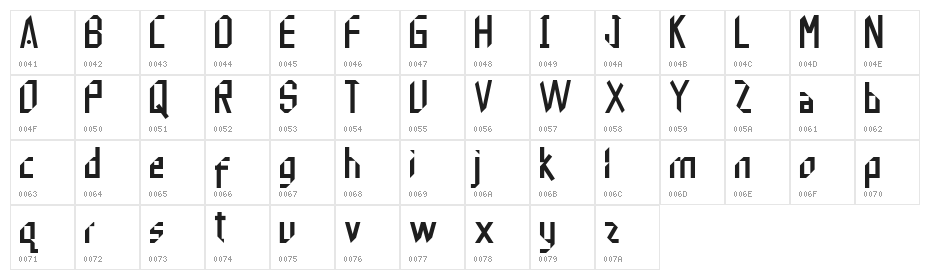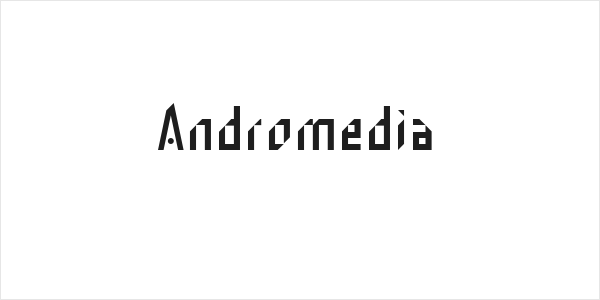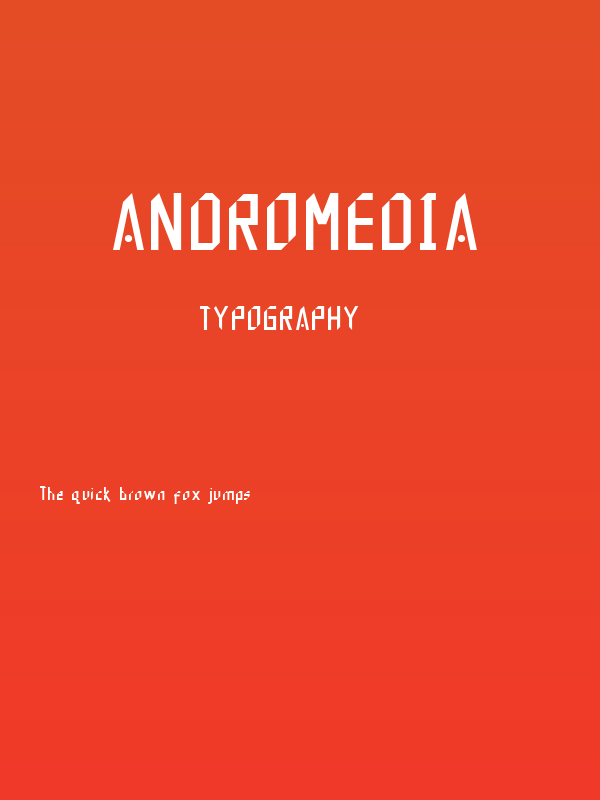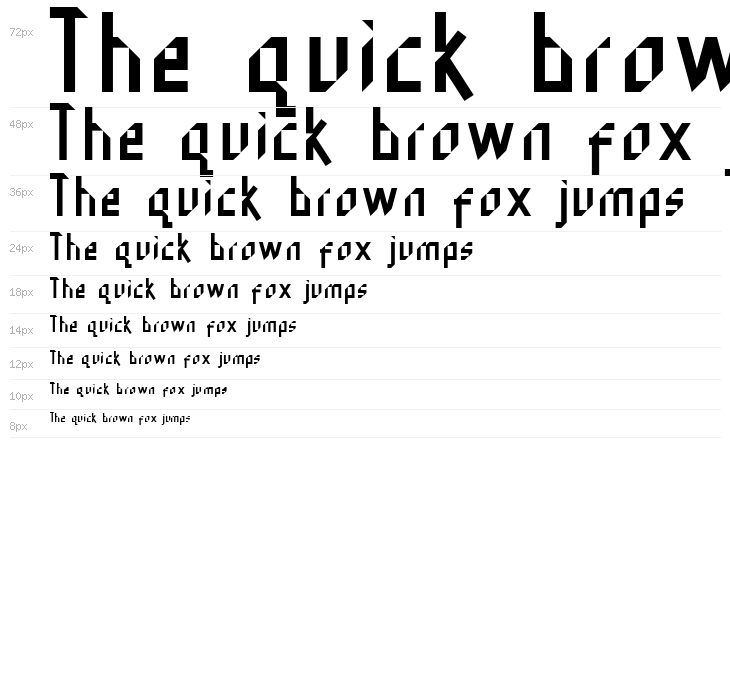
Andromedia Font
Andromedia Description
This font features a bold, geometric design with sharp angles and a futuristic aesthetic. The uppercase and lowercase letters maintain a consistent style, characterized by their angular cuts and distinct edges. The font's unique structure gives it a modern and edgy appearance, making it stand out in any design. The numbers and special characters follow the same design principles, ensuring uniformity across all characters. Its boldness and distinct style make it suitable for projects that require a strong visual impact.
Proposed ProjectsIdeal for sci-fi themed designs, technology branding, video game titles, and modern posters.